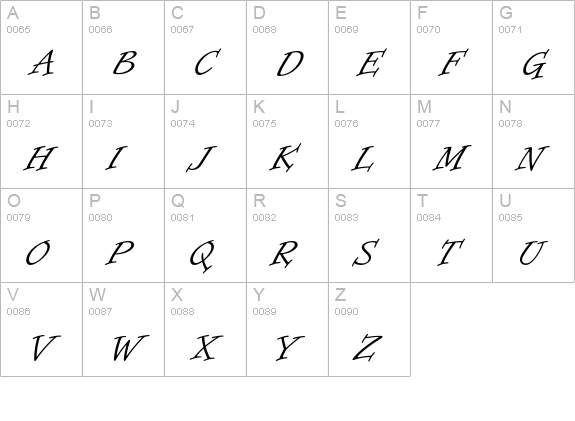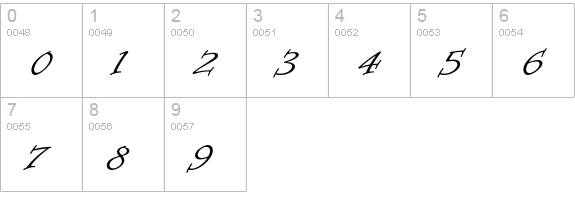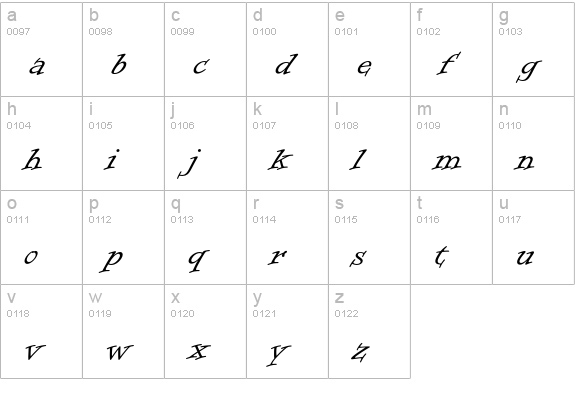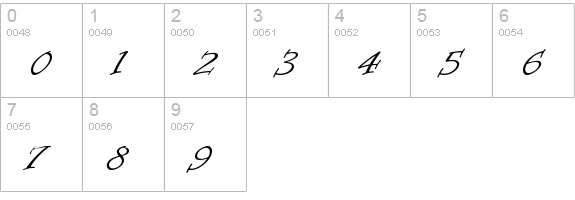
Informal Roman Std Font Details
The Informal Roman Std font is a charming and versatile typeface that effortlessly captures the essence of informal elegance. With its playful yet refined design, this font adds a touch of personality to any project, making it perfect for a wide range of applications. The strokes of the Informal Roman Std font are fluid and dynamic, giving it a sense of movement and liveliness. Each letter is carefully crafted with a unique mix of rounded curves and sharp edges, creating a harmonious balance between formality and informality. This font's versatility is further enhanced by its extensive character set, which includes a variety of ligatures, alternates, and swashes. These additional glyphs allow for endless creative possibilities, making it easy to customize your designs and add a personal touch. One of the best things about the Informal Roman Std font is that it is freely available to download at FontsMarket.com. This means that you can enjoy the beauty and functionality of this font without any cost. Whether you're a professional designer looking for a new go-to font or a casual user in need of a stylish typeface, the Informal Roman Std font is the perfect choice. So why wait? Visit FontsMarket.com today and download the Informal Roman Std font for free. Elevate your designs with this stunning typeface and let your creativity shine.